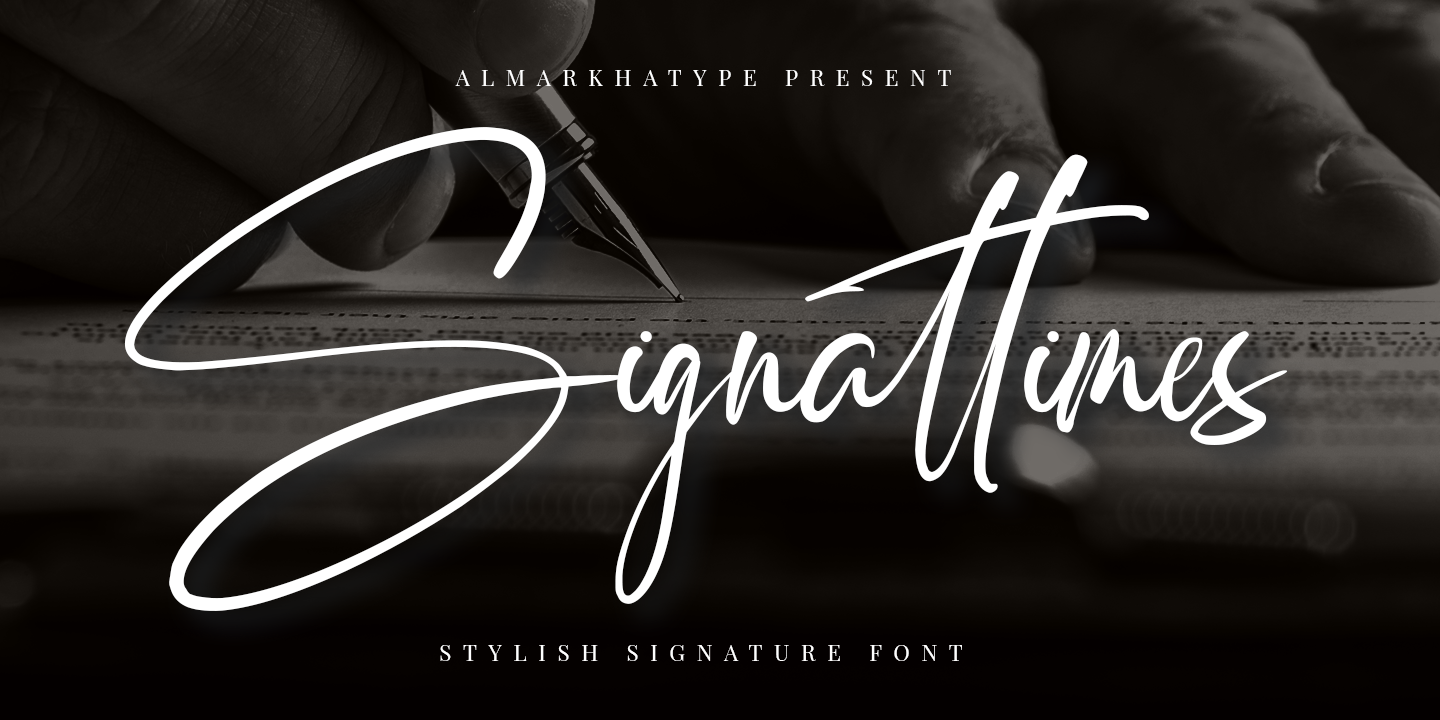
The Signattimes Font is an excellent choice for designs that demand a personal, elegant, and profoundly authentic handwritten aesthetic, often with a touch of timeless sophistication. Imagine it lending an air of refinement to personal branding for creative professionals, gracing the covers of high-end journals, or adding a bespoke feel to exclusive product packaging. It's also perfectly suited for luxurious wedding invitations, upscale event signage, and any project where you want to evoke a sense of individual craftsmanship, intimacy, and lasting beauty. With its fluid strokes and graceful connections, the Signattimes Font is ideal for projects that seek a distinctive and personal impression.
What makes the Signattimes Font truly exciting is its ability to infuse designs with immediate warmth and an unmistakable sense of human artistry. It feels genuinely hand-written, giving your creations an intimate and exclusive quality. The natural flow and subtle variations in its letterforms create a unique signature style that is both visually captivating and remarkably legible for a script font. This font is perfect for establishing a brand identity that feels luxurious, trustworthy, and thoughtfully crafted, ensuring your message is not just seen, but deeply felt. The Signattimes Font Free Download offers a fantastic opportunity to infuse your projects with this distinctive charm.
The Signattimes Font family is typically designed to offer versatility while maintaining its signature elegant and flowing style. While specific family members can vary, you can often expect to find:
• Signattimes Regular (the primary elegant script)
• Signattimes Bold (for added emphasis on titles or special words)
• Signattimes Slanted (or Italic, for a slightly more dynamic lean)
• Signattimes Swash (often including decorative ligatures, alternate characters, and flourishes to enhance its calligraphic feel and provide creative embellishments)
• Signattimes Ligatures (a specific set of combined characters for a more natural, authentic flow)
These variations provide flexibility for different design applications, allowing you to create engaging visual hierarchies and maintain a consistent, charming aesthetic across all your projects.